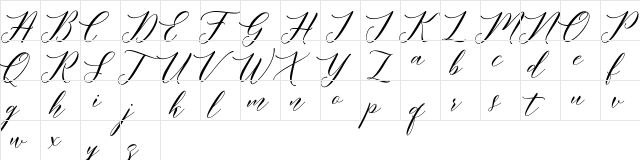
Meetha Script Demo Regular
| Foundry | Juni Fadil Putra |
| Designer | Juni Fadil Putra |
Design Context for Meetha Script Demo Typeface
Meetha Script Demo brings a calligraphic fluidity to the page — its connecting strokes and expressive curves give it an unmistakably human quality.
Font Pairing: Combine Meetha Script Demo with a simple geometric sans for maximum contrast — the tension between flowing curves and clean structure is a classic typographic pairing.
Pro Tip: Pair Meetha Script Demo with a clean sans-serif for supporting text. The contrast between fluid script and geometric structure creates an elegant typographic hierarchy.